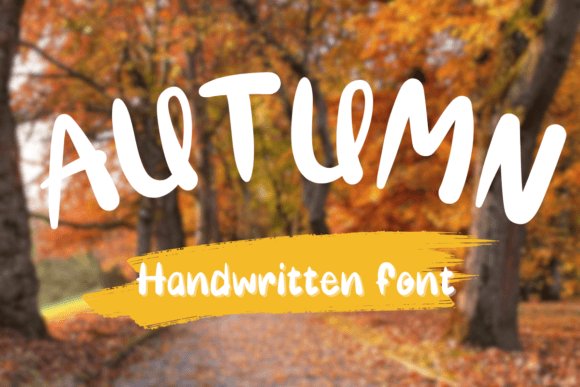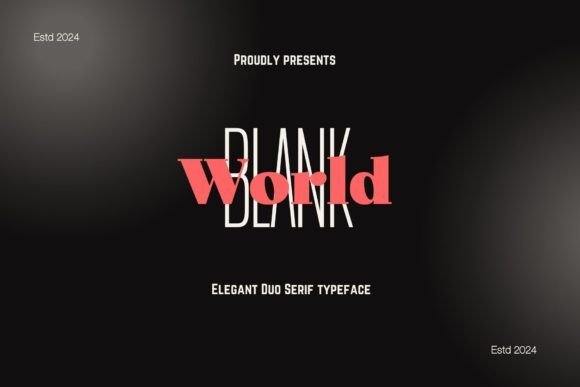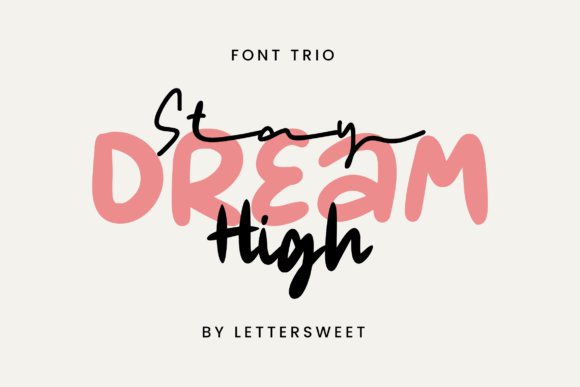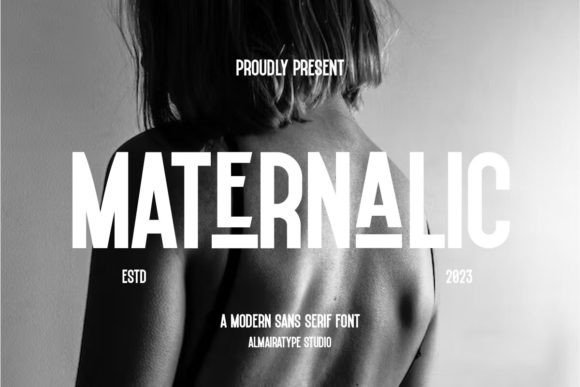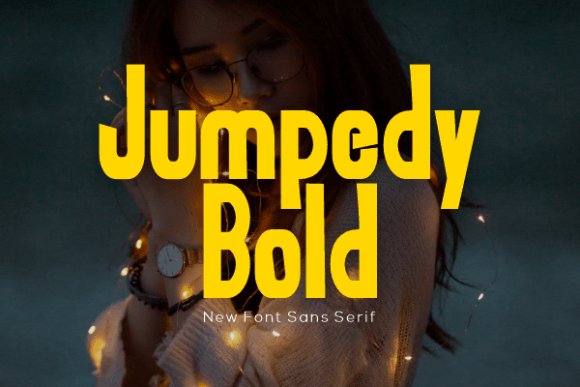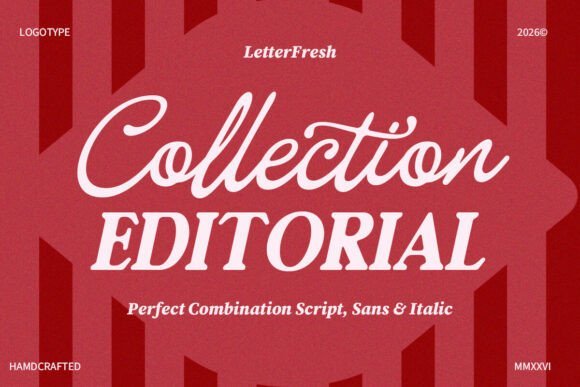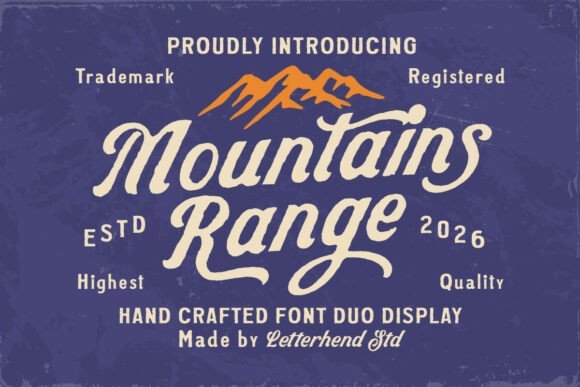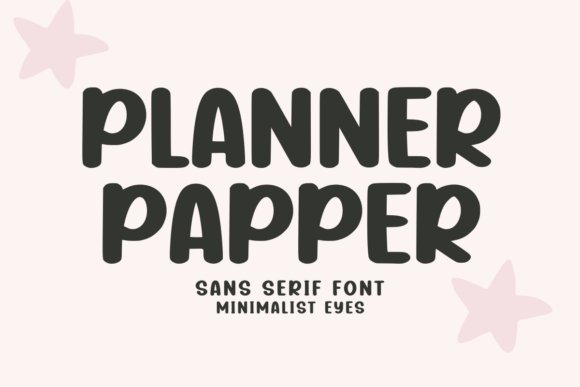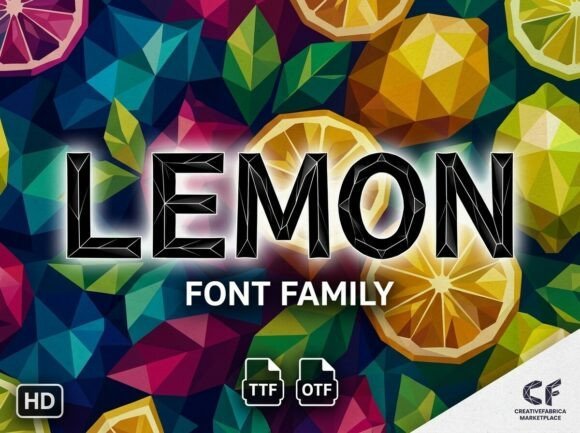
32 Best Bold Sans Serif Fonts for High-Impact Designs in 2026
Choosing the right typography can make or break a brand visual identity, especially when you need to grab attention quickly. In 2026, bold sans serif fonts are more popular than ever, appearing in everything from minimalist websites to high-energy social media ads. Whether you are looking for a thick, blocky typeface or something with clean, geometric lines, these heavy fonts provide the weight needed for strong messaging. We have curated a list of 32 top-tier options that combine personality with professional clarity, helping you find the perfect match for your next big project.
1. Someday Font
Someday
Someday Font captures the whimsical essence of authentic handwriting, offering a fluid and friendly aesthetic that bridges the gap between casual scribbles and professional design. This typeface is particularly effective when you need to inject a sense of warmth and approachability into seasonal projects, from festive holiday cards to back-to-school marketing materials. Its organic strokes provide a soft, human touch that contrasts beautifully when paired with more structured bold sans serif fonts, allowing for a dynamic typographic hierarchy that feels both curated and spontaneous.
Beyond its charm, Someday is a versatile workhorse for digital creators and physical merchandise designers alike. Whether you are crafting engaging social media graphics, designing custom mugs, or building a brand identity for a children’s boutique, this font maintains legibility while exuding personality. Its diverse character set makes it a go-to choice for invitation suites and blog headers where a personalized, boutique feel is the ultimate goal, ensuring your message resonates with a sense of heartfelt sincerity.
2. Blank World Font
Blank World
Blank World Font is a masterclass in modern minimalist typography, providing a sophisticated pairing that combines a high-contrast bold serif with a sleek, narrow sans serif. This dual-identity typeface is built on the principles of utility and clean aesthetics, removing unnecessary flourishes to focus on pure form and functional beauty. By stripping away complex alternates in favor of essential ligatures, it ensures a seamless visual flow that is ideal for high-end editorial layouts and luxury branding where clarity is paramount.
This typeface excels in environments that demand a professional yet contemporary edge, such as architectural portfolios or high-fashion lookbooks. The structural integrity of its thinner elements provides a refined counterpoint to the visual weight typically found in heavy-duty bold sans serif fonts, creating a balanced and harmonious look. If you are looking to design a logo or a website interface that requires a sense of timeless elegance without sacrificing modern sensibilities, Blank World offers the perfect toolkit for a polished, high-impact finish.
3. Stay Dream High Font
Stay Dream High
Stay Dream High Font is a comprehensive typographic collection that brings together three distinct styles to offer unparalleled creative flexibility. At its core, the set features a series of bold sans serif fonts with soft, rounded edges that evoke a sense of playful confidence. Complemented by a raw, hand-scribbled variant and an elegant signature script, this trio allows designers to layer different textures and weights within a single project to create a cohesive yet multifaceted visual narrative.
This font family is particularly well-suited for the fast-paced world of social media content creation and contemporary apparel design. The chunky, bold sans serif fonts within the pack act as perfect anchors for headlines and call-to-action buttons, while the script and scribbled elements add a layer of raw, artistic energy. By mixing these styles, you can achieve a custom, hand-crafted look that feels tailor-made for streetwear brands, lifestyle vlogs, and modern poster art that needs to stand out in a crowded digital landscape.
4. Maternalic Font
Maternalic
Maternalic Font delivers a heavy-set, nostalgic punch that is perfect for designers looking to bridge the gap between retro aesthetics and modern impact. Its thick, rounded terminals and substantial weight make it a standout choice among bold sans serif fonts, particularly when applied to tactile branding like embroidered apparel or textured vinyl covers. The vintage charm is balanced by a geometric clarity that ensures legibility even when printed on smaller labels or intricate packaging.
Beyond its visual weight, this typeface excels in high-energy promotional materials such as music posters and event flyers. By utilizing its robust presence, you can create a hierarchy that demands attention without the need for additional ornamentation. Whether you are crafting a brand identity for a local business or a sleek layout for a boutique magazine, Maternalic provides the structural integrity and character needed for a professional finish.
5. Jumpedy Bold Font
Jumpedy Bold
Jumpedy Bold Font represents the pinnacle of contemporary minimalism, offering a clean and punchy look that thrives in digital environments. Unlike traditional typefaces with ornate flourishes, this design focuses on pure form and function, making it an essential addition to any collection of bold sans serif fonts. Its thick strokes are engineered for maximum readability, ensuring that headers and call-to-action buttons pop against busy backgrounds in mobile applications and user interfaces.
Finding the right heavy typeface does not have to be a struggle. With these 32 bold sans serif fonts, you have a versatile toolkit ready for any design challenge that comes your way in 2026. From corporate branding to editorial layouts, these fonts ensure your text remains legible while making a powerful statement. Try experimenting with different weights and tracking to see how these sans faces can change the vibe of your work. Start building your typography library today and let these high-impact styles do the heavy lifting for your brand.